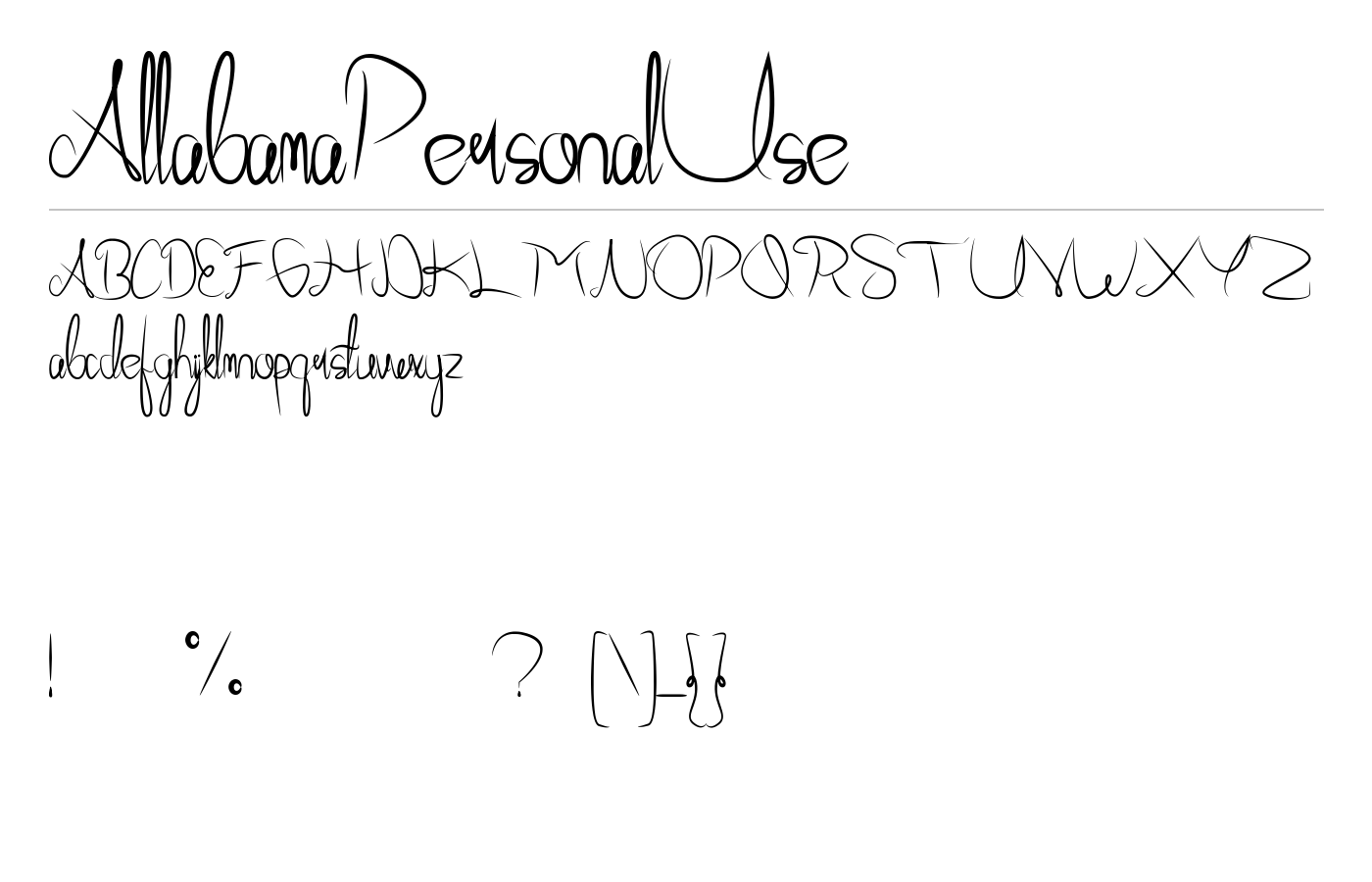
AllabamaPersonalUse is a delicate, whimsical handwritten script font characterized by its fine, narrow strokes and tall, airy letterforms. Its light and playful style lends a unique, artistic charm, making it ideal for personal projects, invitations, or creative branding that seeks a quirky, elegant touch. This font works best where a casual yet refined feel is desired, especially in decorative or informal contexts.
AllabamaPersonalUse Font
About AllabamaPersonalUse Font